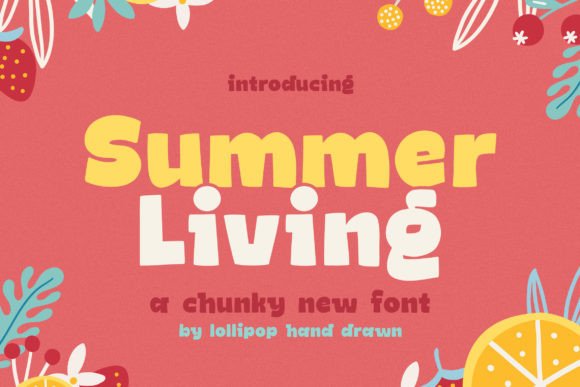
Welcome to Summer Living, the font that will bring life to your design! Created by Lollipop Hand Drawn, this font is a must-have for anyone looking for a fun and playful display font. With its chunky letters, Summer Living is perfect for those who are looking for a font for block letters.
Whether you are creating posters, greeting cards, or social media graphics, Summer Living is a font that will not disappoint. It has a unique charm that will attract attention and make your design stand out. The font is available in a variety of weights, so you can choose the perfect one for your project.
Summer Living is not just a font, it's a mood lifter. The cheerful and bright style of the font will inject joy into your design and make your audience smile. It's the perfect font for anything that needs a touch of positivity and fun.
With Summer Living, you can create designs that are perfect for a wide spectrum of applications. From children's books to food packaging, this font is versatile and can adapt to any project.
In summary, Summer Living is a font that will help you express your creativity and create designs that are both beautiful and playful. So why wait? Add Summer Living to your font collection today and start creating!